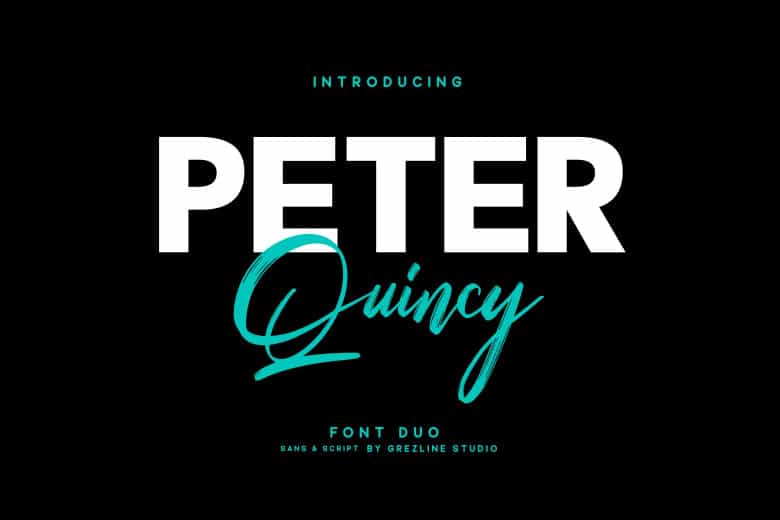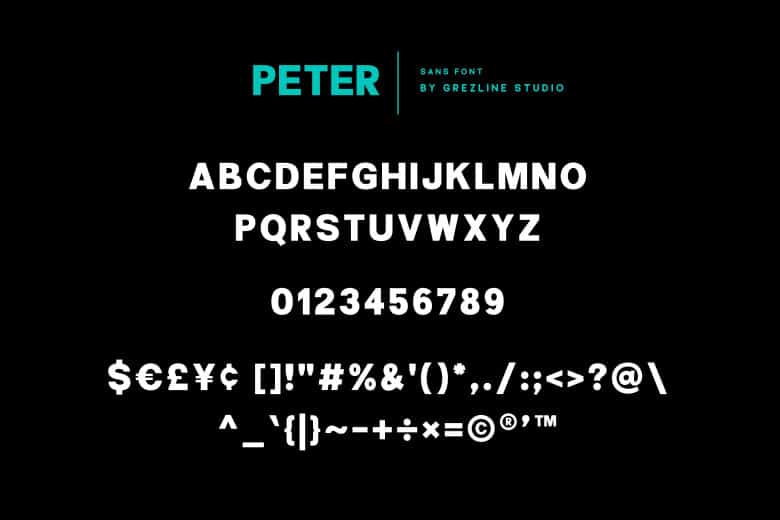
Peter Quincy is a unique font duo with hand-drawn and sans script styles. Peter Quincy makes for the ideal font when used for branding and typography designs, Christmas cards, packaging for products invitation designs quotes t-shirt designs label posters special occasions as well as anything that needs handwriting!